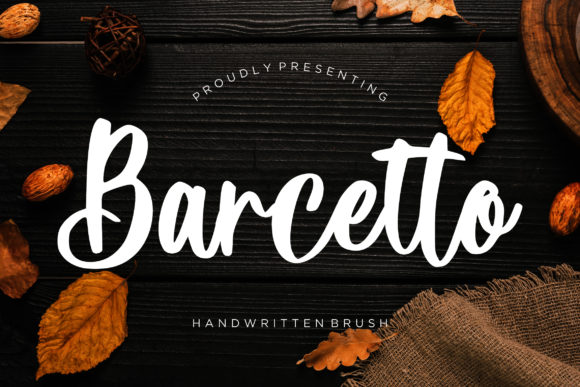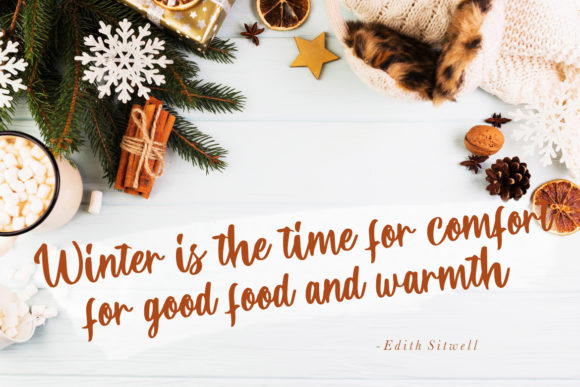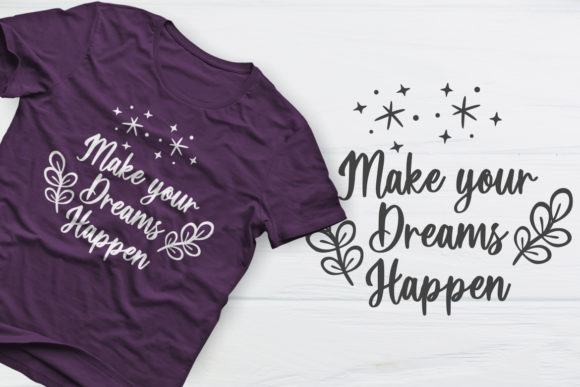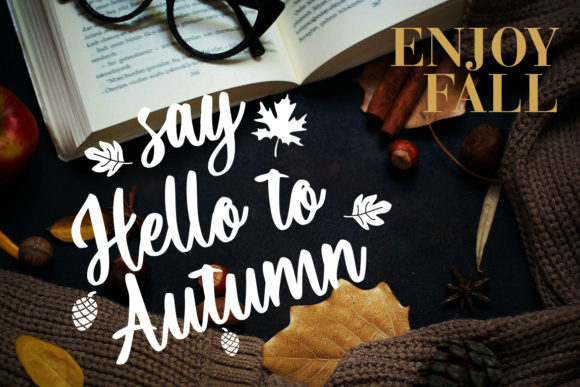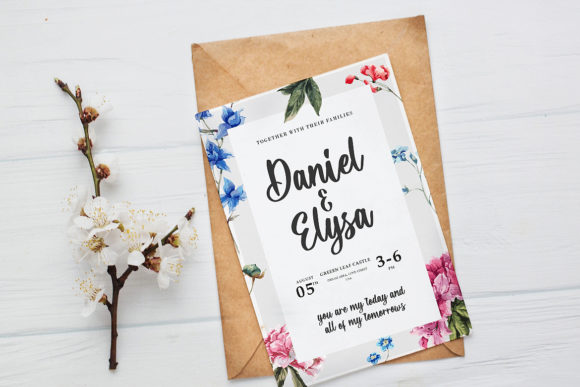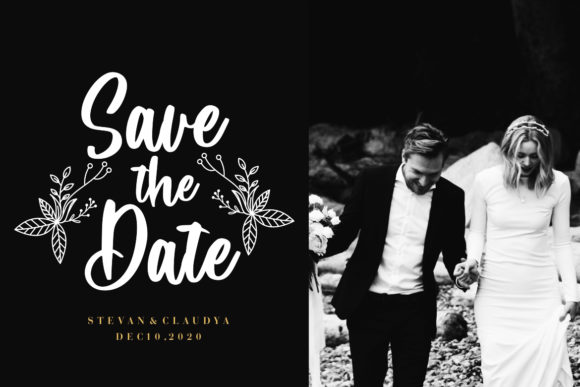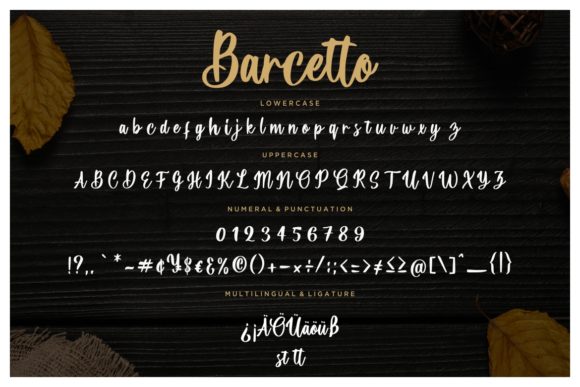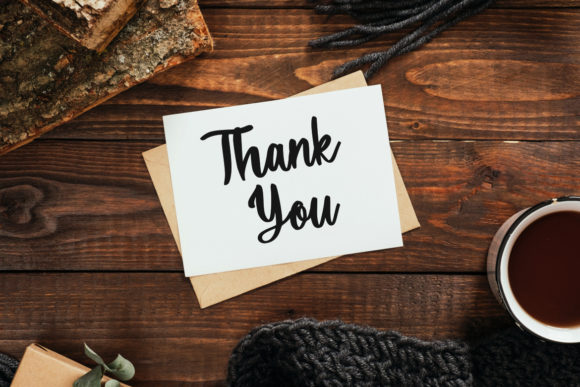
HomeScript FontsBarcetto Font Script Fonts Barcetto Font FacebookXPinterestWhatsApp Barcetto Font Poster 2 Barcetto Font Poster 3 Barcetto Font Poster 4 Barcetto Font Poster 5 Barcetto Font Poster 6 Barcetto Font Poster 7 Barcetto Font Poster 8 About Barcetto Font Barcetto is an incredibly charming script, full of energy. Fall in love with its dynamic approach to lettering. DOWNLOAD ON CREATIVE FABRICAThis font is sold and delivered by Creative Fabrica. Font Canyon may earn a commission if you buy through this link. People also explored Advent Font Rosemarie Font Rope Font Cat Mom Monogram Font Carlottena Font Sandra Type Font Katrina Fast Casual Avelyn Font 295 0 TagsBarcetto Font Previous articleAgnetha FontNext articleRupture Duo Font LEAVE A REPLY Cancel reply Comment: Please enter your comment! Name:* Please enter your name here Email:* You have entered an incorrect email address! Please enter your email address here Website: Save my name, email, and website in this browser for the next time I comment. Personal Use Free Densmore Personal Use Free Read more about this font Mahisya Personal Use Free Read more about this font Xplor Personal Use Free Read more about this font Tide Personal Use Free Read more about this font BLOG Free Fonts Risk: Why Free Fonts Can Be Dangerous for Designers Free Fonts Risk: Why Free Fonts Can Be Dangerous for Designers Using free fonts is a common practice in web and graphic design. However, the... Best Fonts for YouTube Videos: Make Your Thumbnails Stand Out Best Fonts for T-Shirt Design – Top 2025 Picks How to Install and Use Fonts on Windows, macOS, and Web Projects